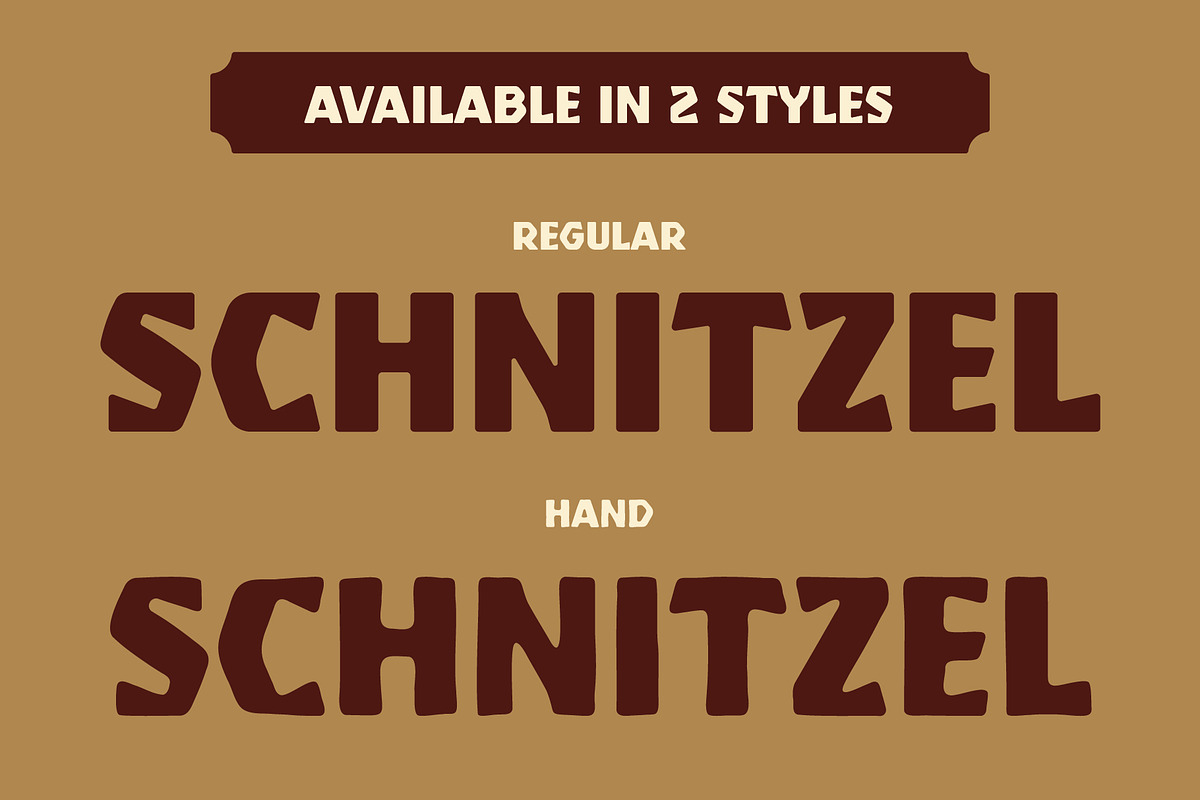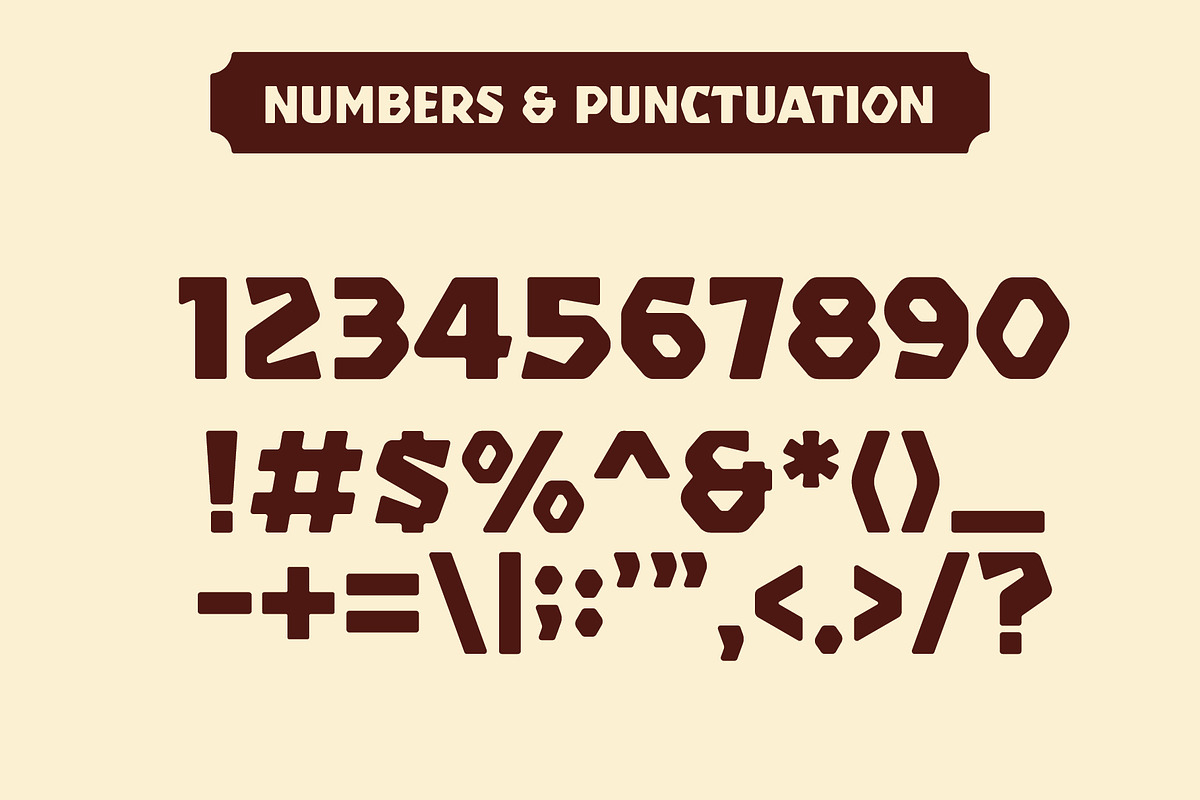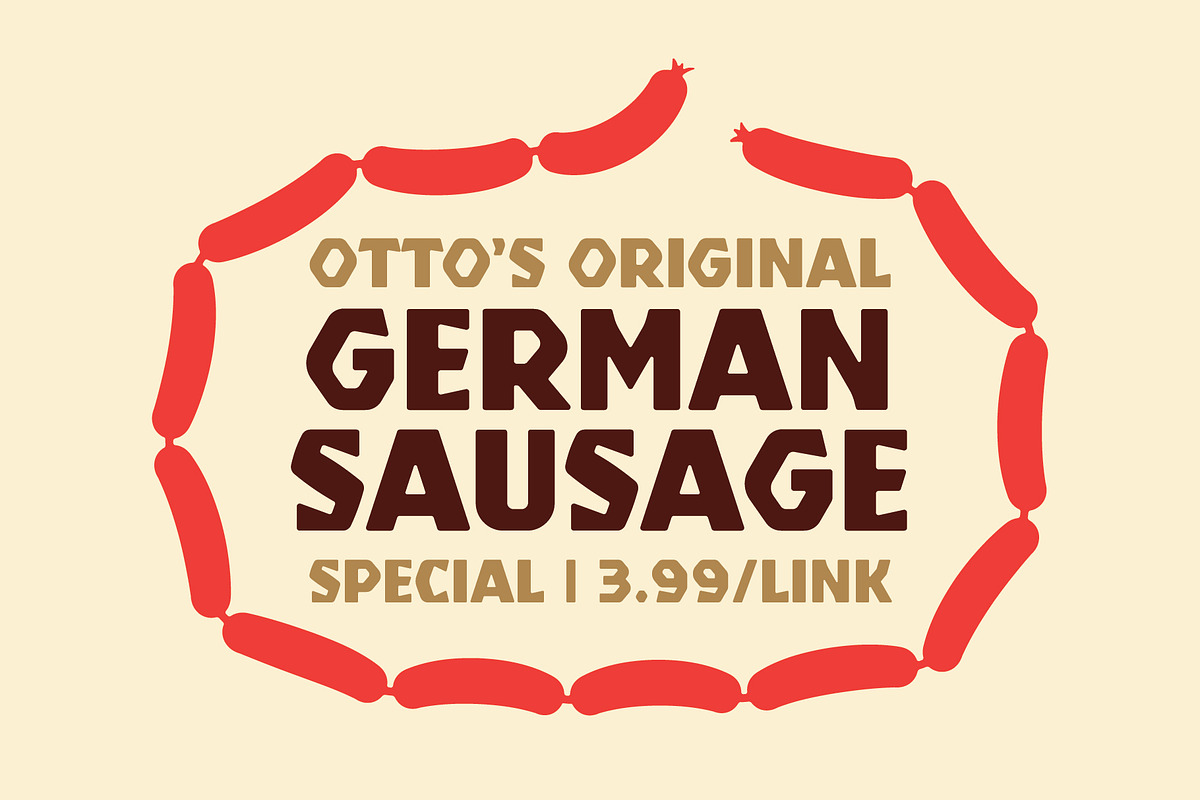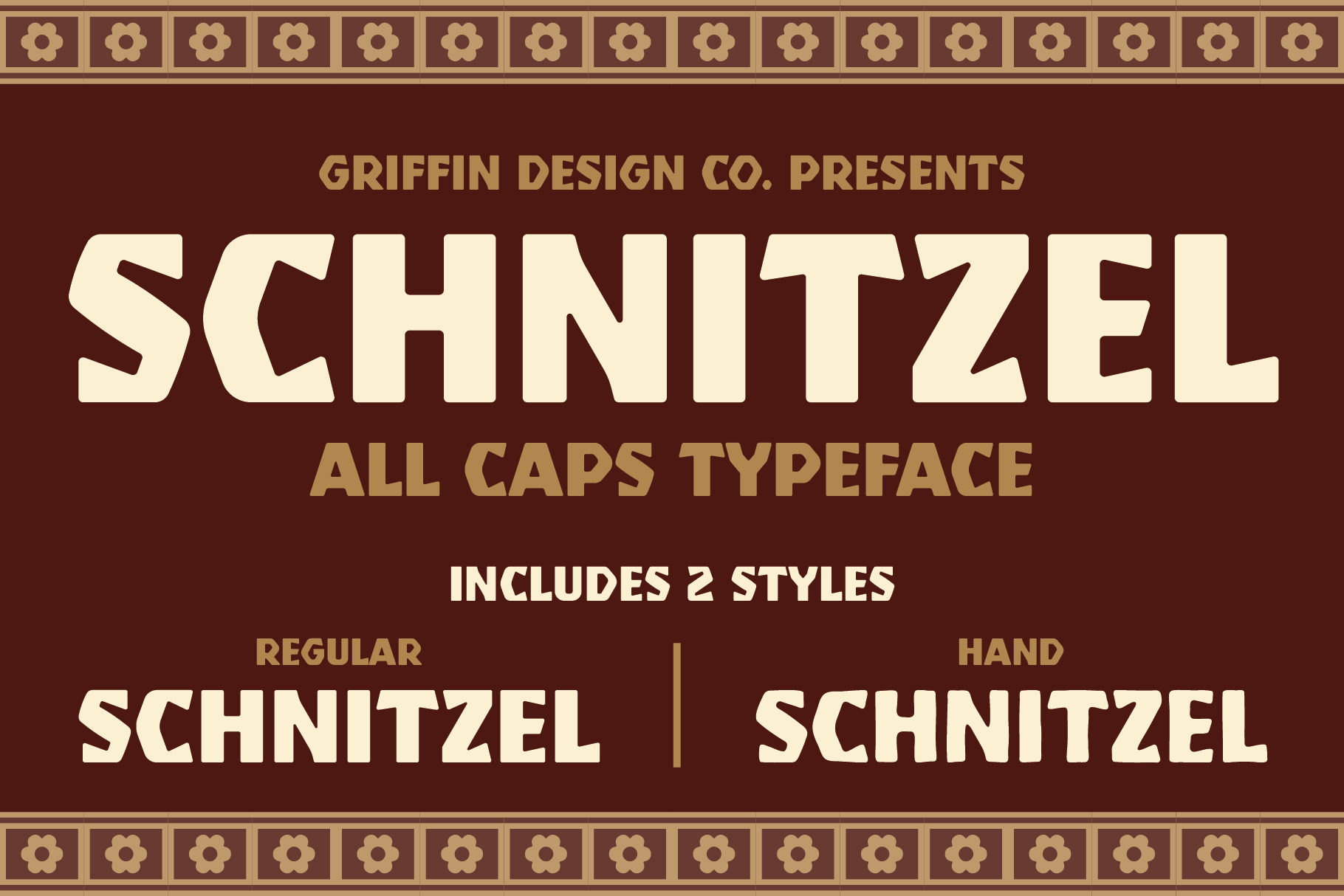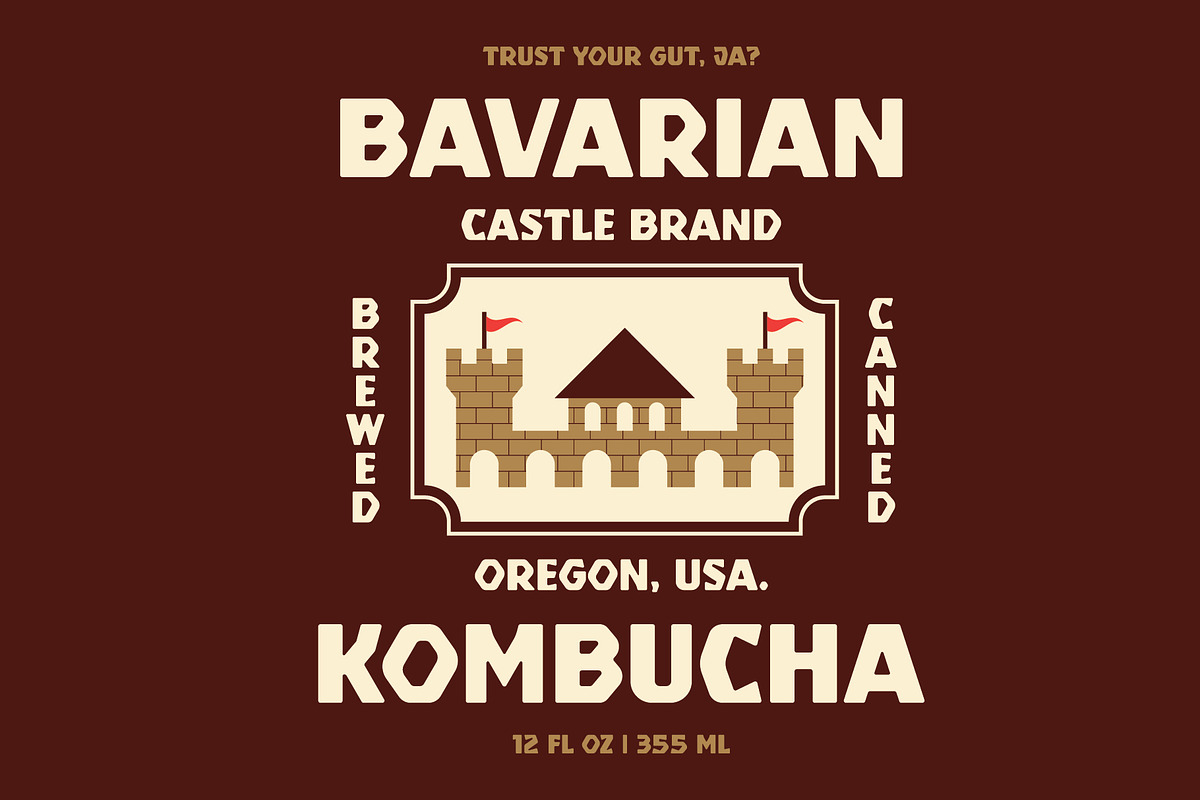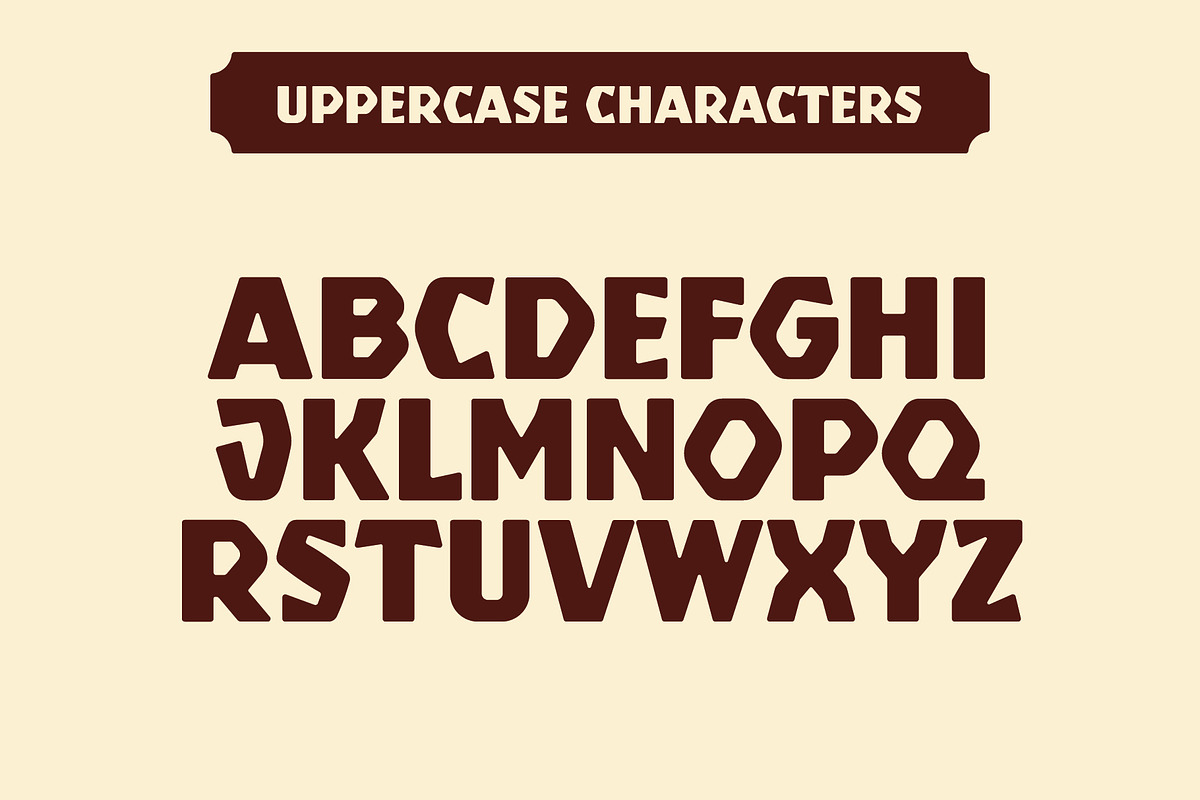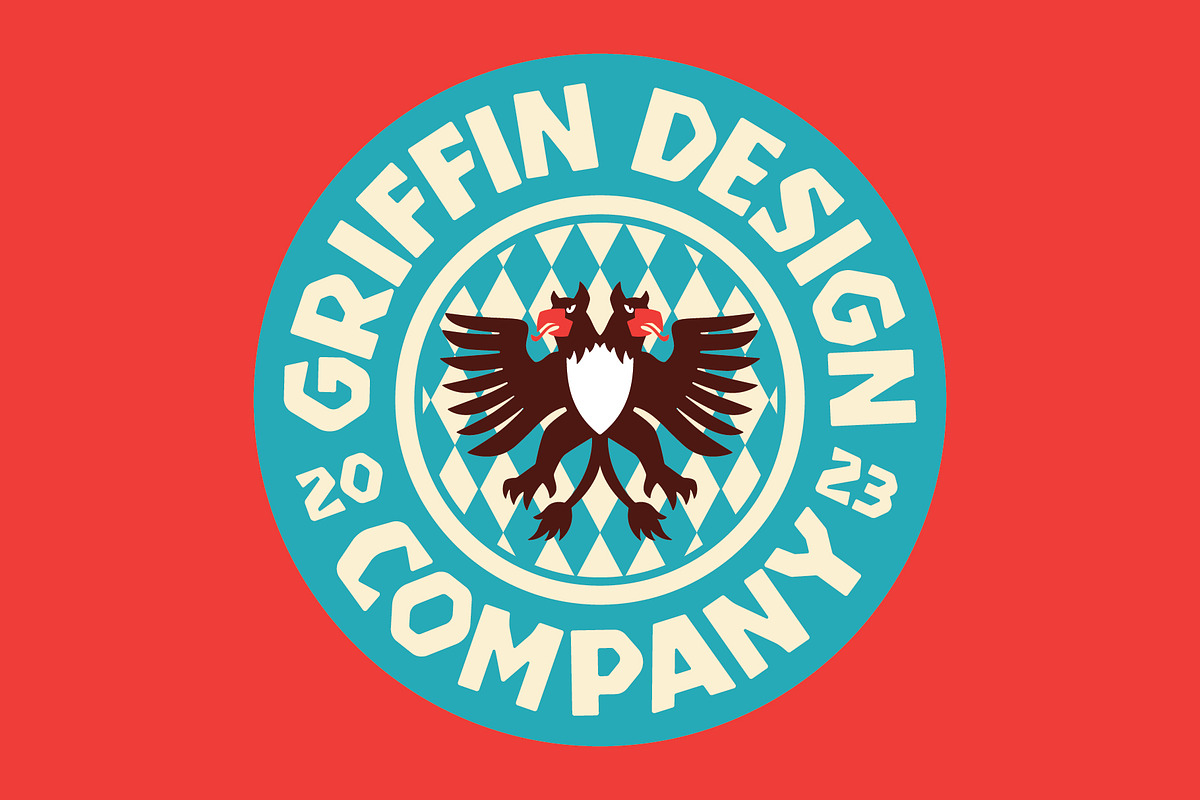
GDC Schnitzel Typeface
GDC Schnitzel is an angular, industrial-leaning display typeface designed for bold headlines, while adding some unexpected charm. This font includes uppercase letters, numbers, and punctuation and comes in 2 different styles - Regular and Hand.